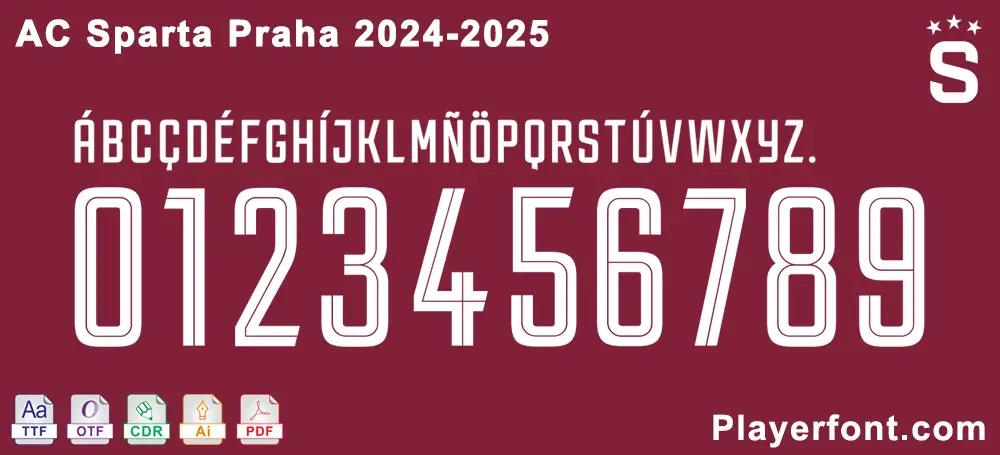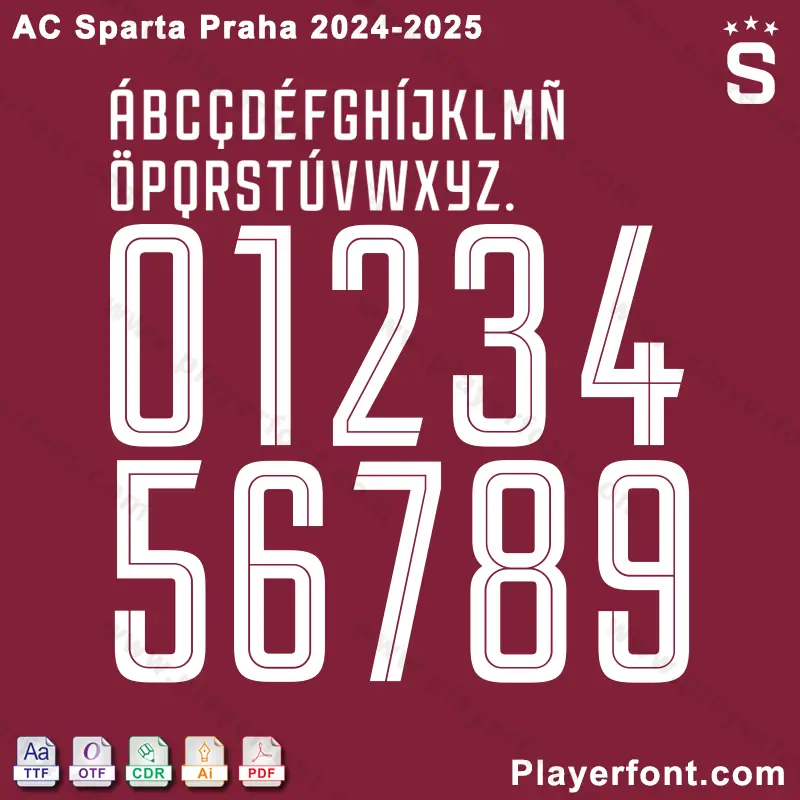
Are you a graphic designer, a dedicated fan, or a custom jersey maker looking for the exact font used by AC Sparta Praha for the 2024-2025 season? Look no further! This exclusive download provides the high-quality, authentic typeface for players’ names and numbers.
- Authentic Design: This is the precise font style featured on the official AC Sparta Praha 2024-2025 kits.
- Complete Character Set: The download includes the full alphabet (A-Z, including specialized Czech characters like Á,Č,Ď,É,Í,Ñ,Ö,Ř,Š,Ú,Ü,Ý,Ø) and the complete numerical set (0-9).